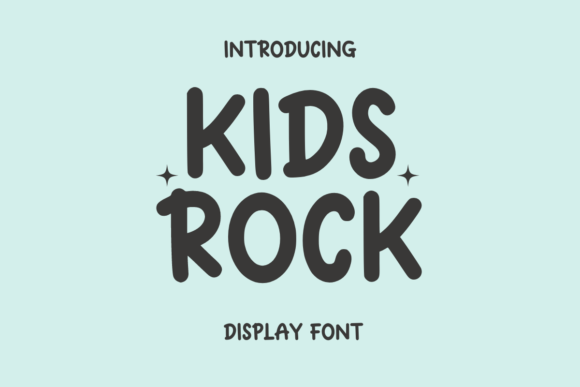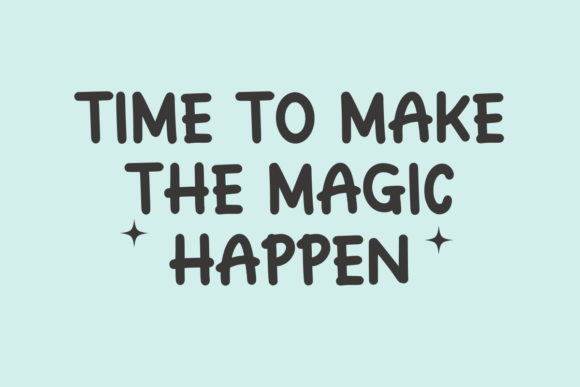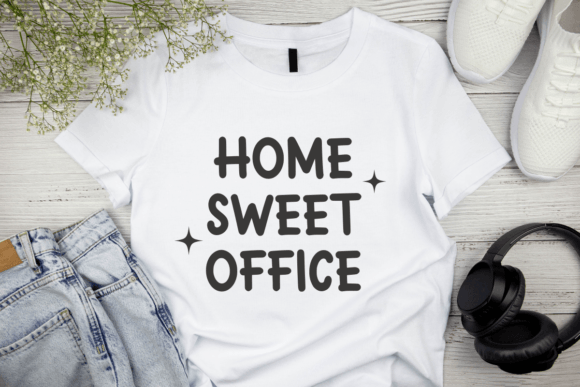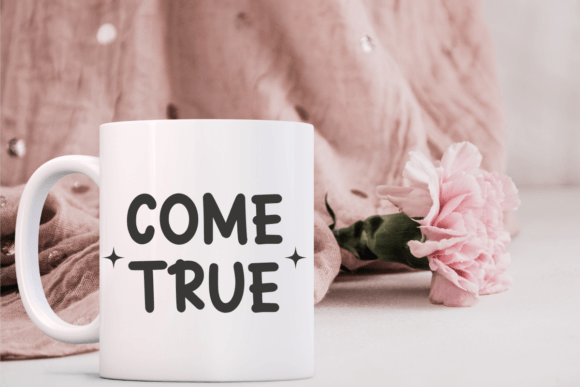
Kids Rock Font: A Cute & Playful Display Font for Cricut Crafts
About the Kids Rock Font
Welcome to the world of Kids Rock Font, a typeface that will inspire your next great project. Kids Rock is a cute and playful handwritten font. Whatever the topic, this font is perfect for your creative craft needs!
Kids Rock excels in projects needing a friendly, approachable feel. Ideal uses include children’s book titles, playful branding for toys or kids’ clothing, greeting cards, and social media posts targeting a younger audience. It’s less suitable for body text or UI elements due to its informal, handwritten nature; legibility suffers in longer passages.
For optimal visual balance, pair Kids Rock with a clean sans-serif like Open Sans for body copy or a slightly more geometric sans-serif for a modern contrast. A playful script font could also enhance its whimsical charm, though careful consideration of kerning is necessary to avoid visual clutter.
Its core personality is undeniably playful and energetic, making it a strong choice for brands focusing on fun, creativity, and youthfulness. Avoid using it for projects requiring sophistication or a sense of formality.